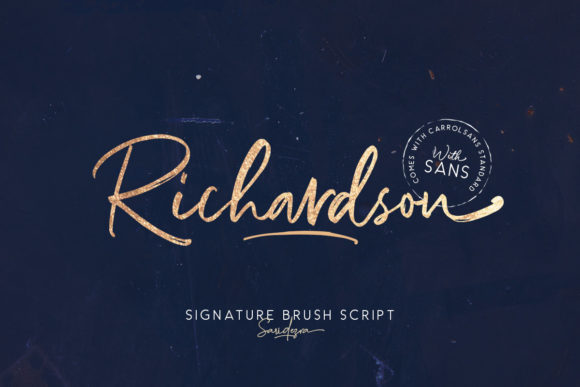
Introducing Richardson Font, the Inkredible Script for Design Aficionados
In a world of fonts, there stands a captivating script, waiting to transform your designs into works of art. It's the Richardson Font, a striking signature brush script that possesses an unqiue allure, ready to make your creations shine.
Conceived by the creative mind of Saridezra, the Richardson Font is no ordinary typeface. It's a symphony of letters, a dance of characters gliding across the canvas of your imagination. It's a gateway to self-expression, an invitation to unleash your creativity.
With its bold edges and dynamic flow, Richardson Font graces your designs with a touch of refined elegance. It's perfect for those who treasure distinctive lettering, for those who yearn to make a statement.
As a designer, you understand the power of typography, the way it can elevate your message, convey emotions, and captivate audiences. The Richardson Font, with its captivating allure, is your secret weapon to mesmerizing designs.
With Richardson Font, your logos will radiate charisma, your fashion designs will exude sophistication, and your wedding stationery will overflow with romance. Your quotes and messages will ignite imaginations, leaving a lasting impression on the hearts of your readers.
Don't settle for bland typography. Choose Richardson Font, the captivating script that ignites the soul of your designs. It's not just a font; it's a conduit for inspiration, a portal to boundless creativity.
Immerse yourself in the world of Richardson Font and experience the transformative power of remarkable typography. Let your designs transcend the ordinary and dance with the rhythm of creativity.